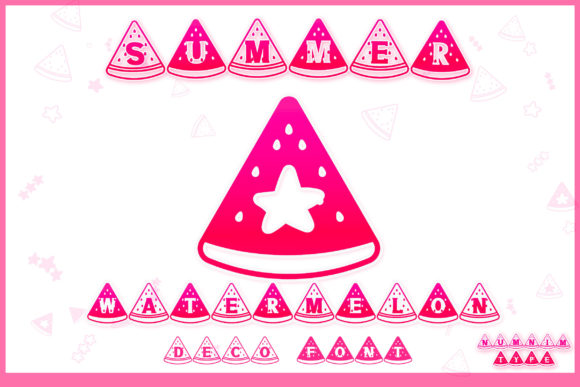
Behold! Dive into the depths of Summer Watermelon font, a creation born from a passion for the season's sweetest indulgence. This font family, adorned with the keyword 'Best Font for Vintage,' will transport you to a world of captivating designs. Its decorative charm carries a touch of nostalgia, reminiscent of cherished vintage finds, while its PUA encoding offers effortless access to a treasure trove of glyphs and swashes. The very essence of summer, bottled in a font.
Step into a world where watermelon seeds dance across your digital canvas, evoking memories of lazy summer afternoons and the sweet taste of juicy slices. Create stickers that radiate with a vintage flair, design mugs that exude a timeless elegance, or adorn t-shirts with playful messages. Let your creativity blossom as you craft summer event cards and invitations that capture the spirit of sun-kissed days and balmy nights.
Unleash your imagination and watch as Summer Watermelon font transforms your designs into masterpieces. Its playful characters possess an infectious energy, spreading joy with every word you type. Embrace the magic of summer, capture the essence of vintage treasures, and let your creativity soar.